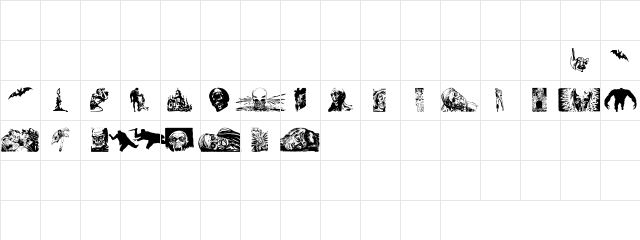
Complete Horror Dingbats Eerie Edition Regular glyph index. Displaying only characters natively supported by Horror Dingbats Eerie Edition Regular font.
Horror Dingbats Eerie Edition carries an unsettling edge - its distorted letterforms are built to unsettle, perfectly suited to horror, Halloween, and dark creative work.
Font Pairing: Pair with a clean neutral sans-serif for body copy to let Horror Dingbats Eerie Edition's character lead without overwhelming the composition.
Pro Tip: Use Horror Dingbats Eerie Edition at larger display sizes for maximum impact. Consider generous tracking to let the disturbing character of each letterform breathe.